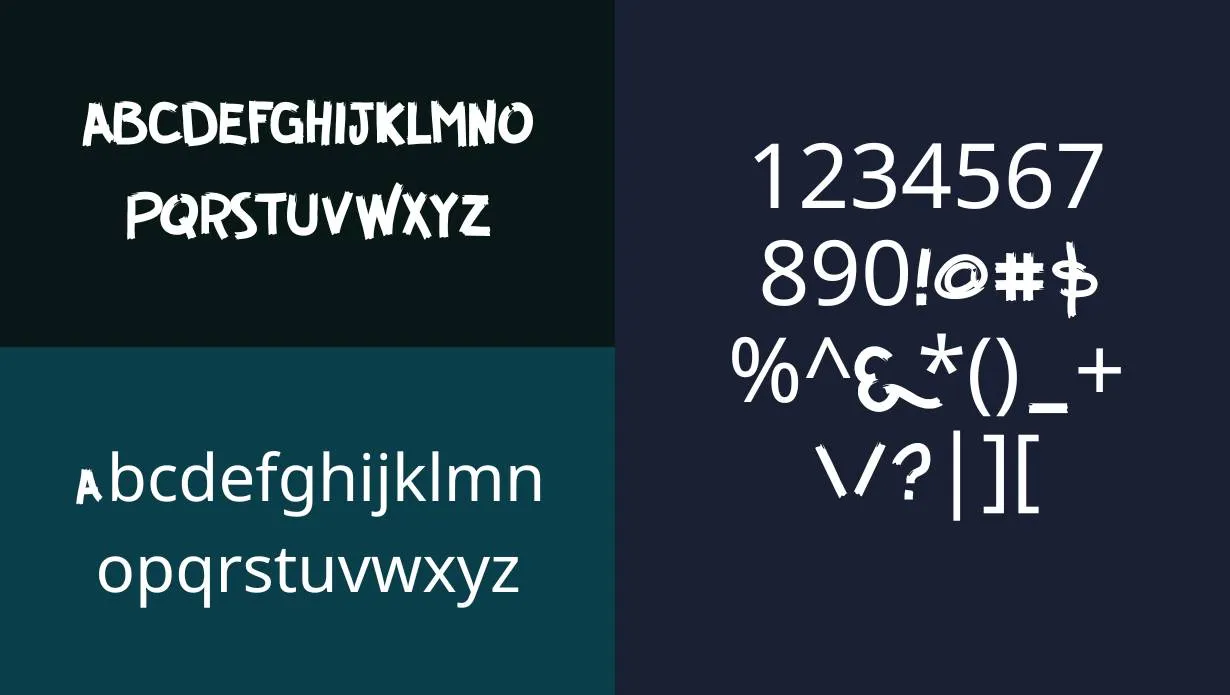
Guerrilla font is like a rebel yell, adding a rebellious and bold touch to your words. Ideal for edgy designs or expressive statements, it creates a sense of rebellion. The defiant and robust weight makes your words feel like a call to action, and its powerfully proportioned width ensures a rebellious presence.
Guerrilla is the font that shouts your message loud and clear in the rebellious language of design, perfect for anything that requires a bold and defiant statement.
| Name | Guerrilla Font |
| Designer | Carlos Zubia |